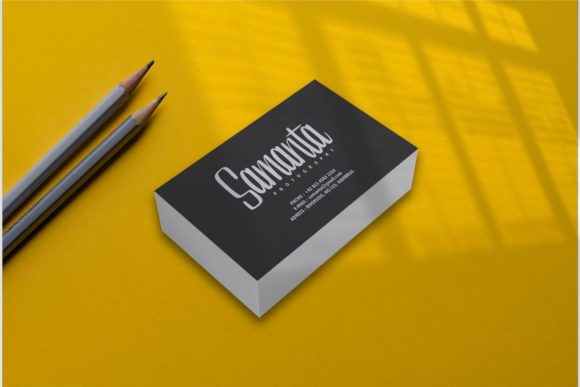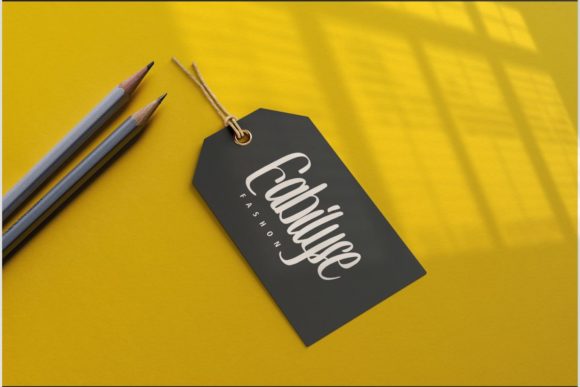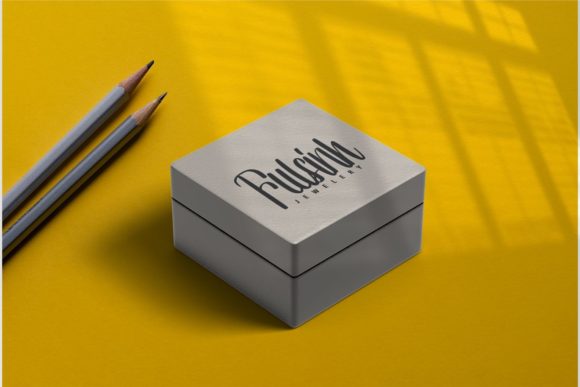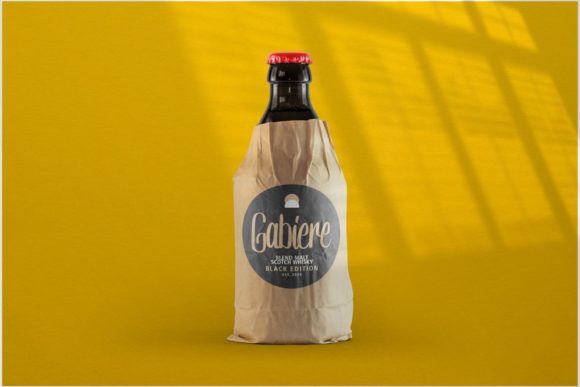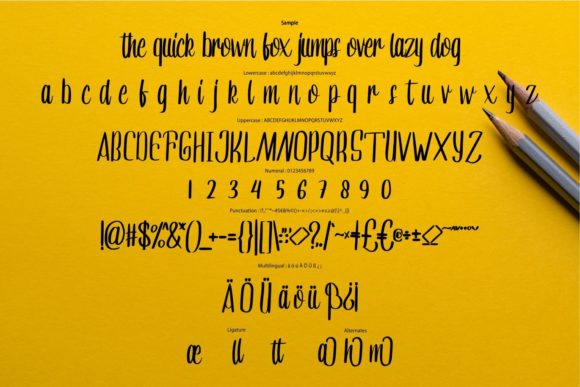
Adillia Font
About Adillia Font
Adillia is a bold and playful handwritten font. Its cursive style and well-rounded characters make this font a wonderful addition to your fonts library!